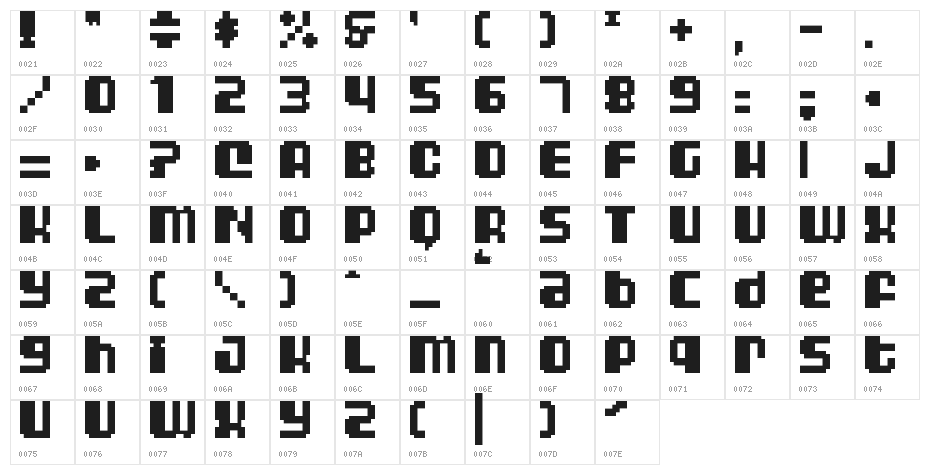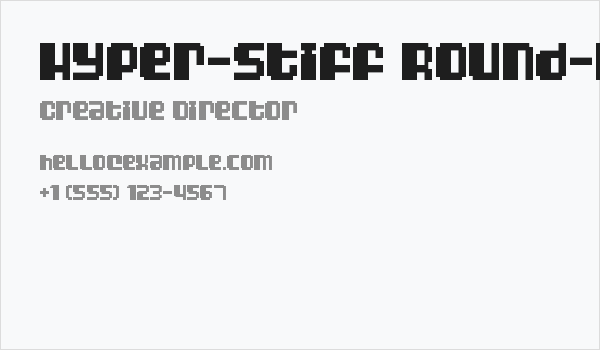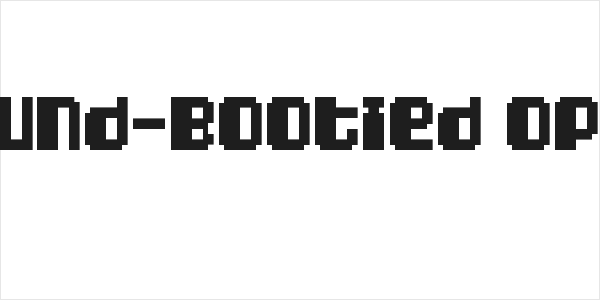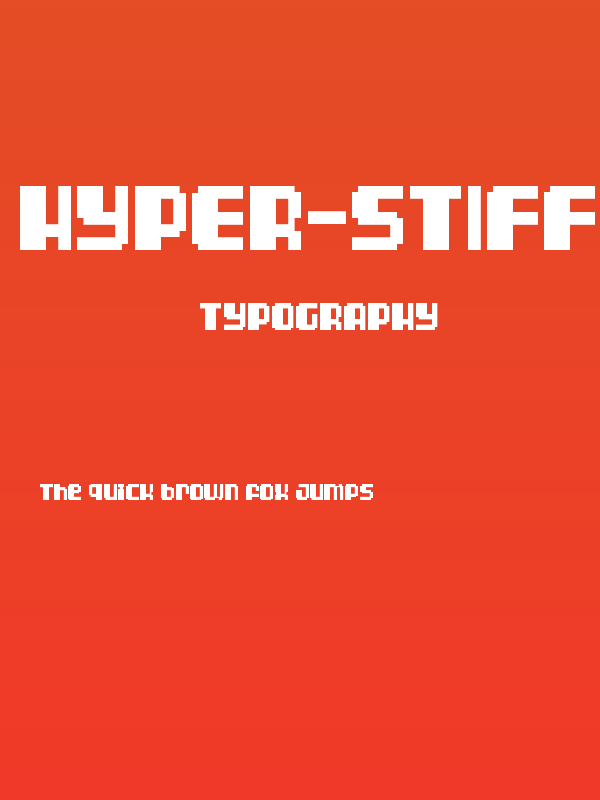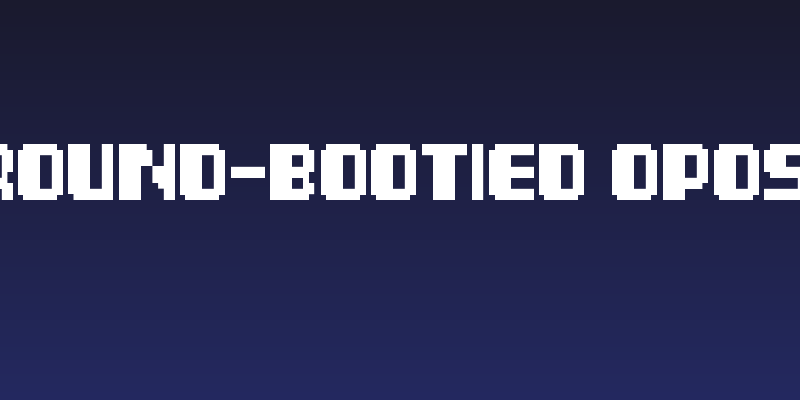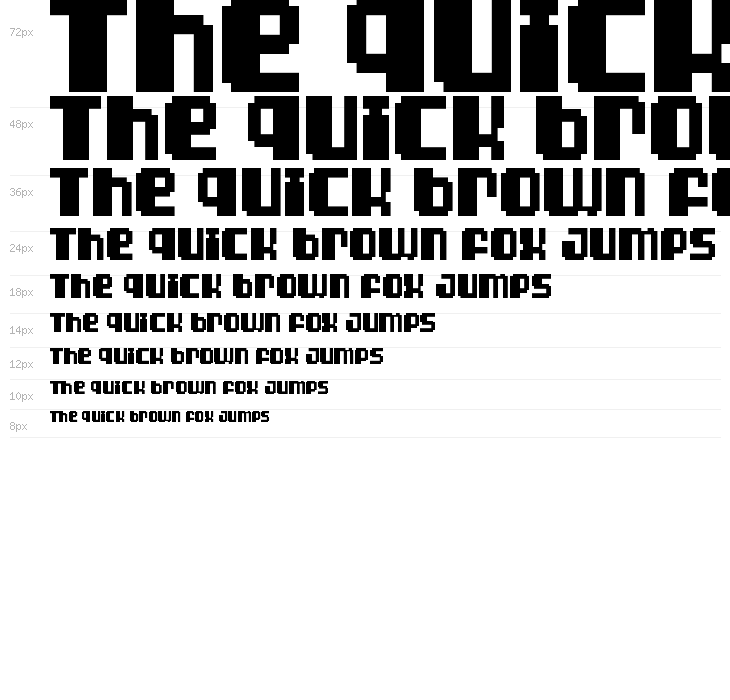
Hyper-Stiff Round-Bootied Opossum Regular Font
Hyper-Stiff Round-Bootied Opossum Regular Description
This font features a bold, pixelated design that evokes a retro, digital aesthetic reminiscent of early video game graphics. The characters are blocky and uniform, with sharp edges and a consistent height across both uppercase and lowercase letters. The numbers and special characters maintain the same pixelated style, ensuring a cohesive look throughout. The font's geometric structure and lack of curves give it a distinctly modern and technological feel, making it ideal for projects that aim to capture a sense of nostalgia or digital innovation.
| Overall Style | Retro, Digital |
| Proposed Projects | Ideal for video game design, digital art projects, retro-themed posters, and tech-related branding. |